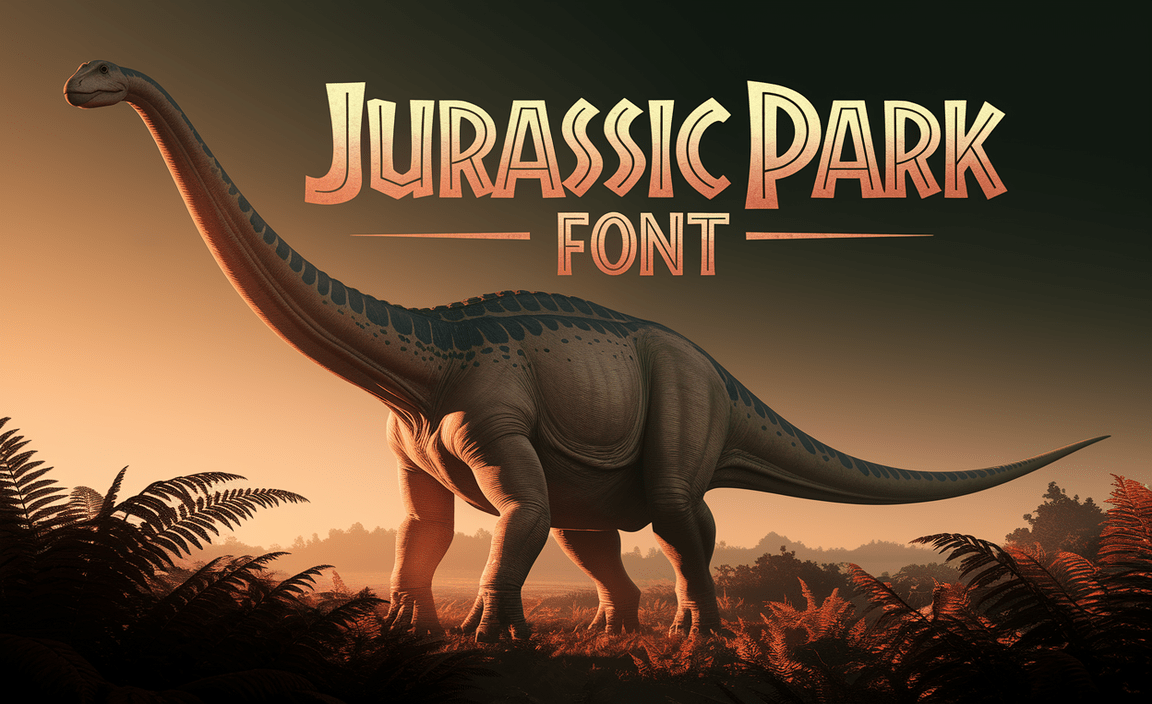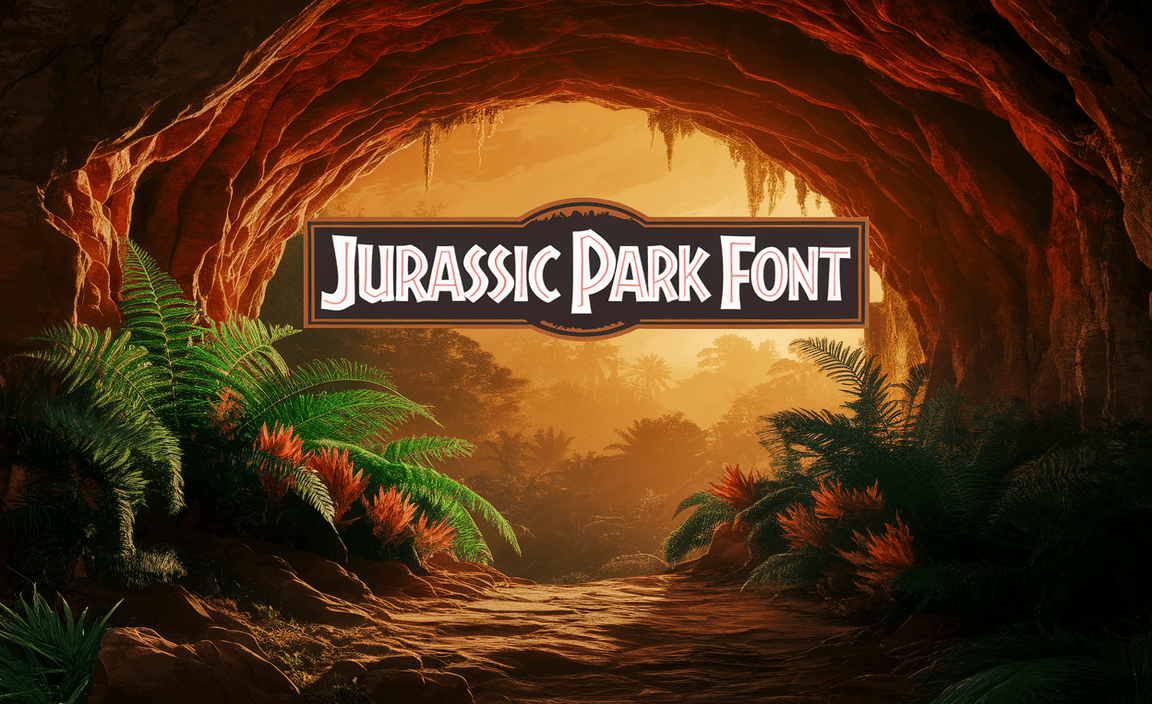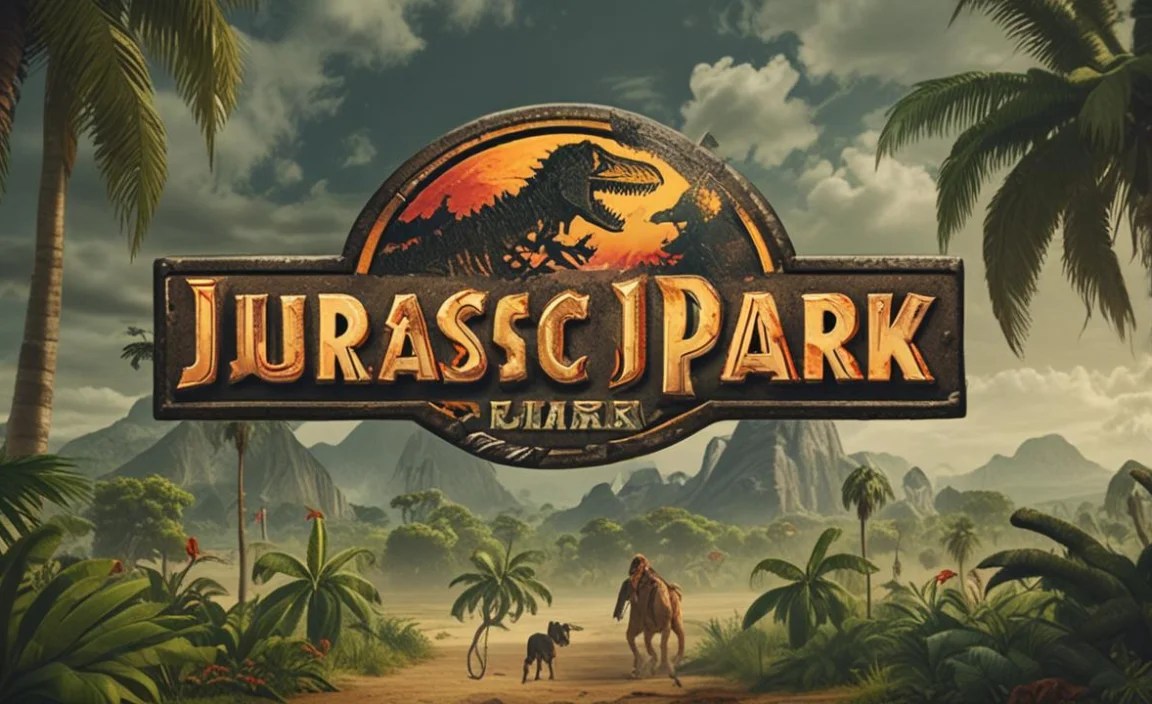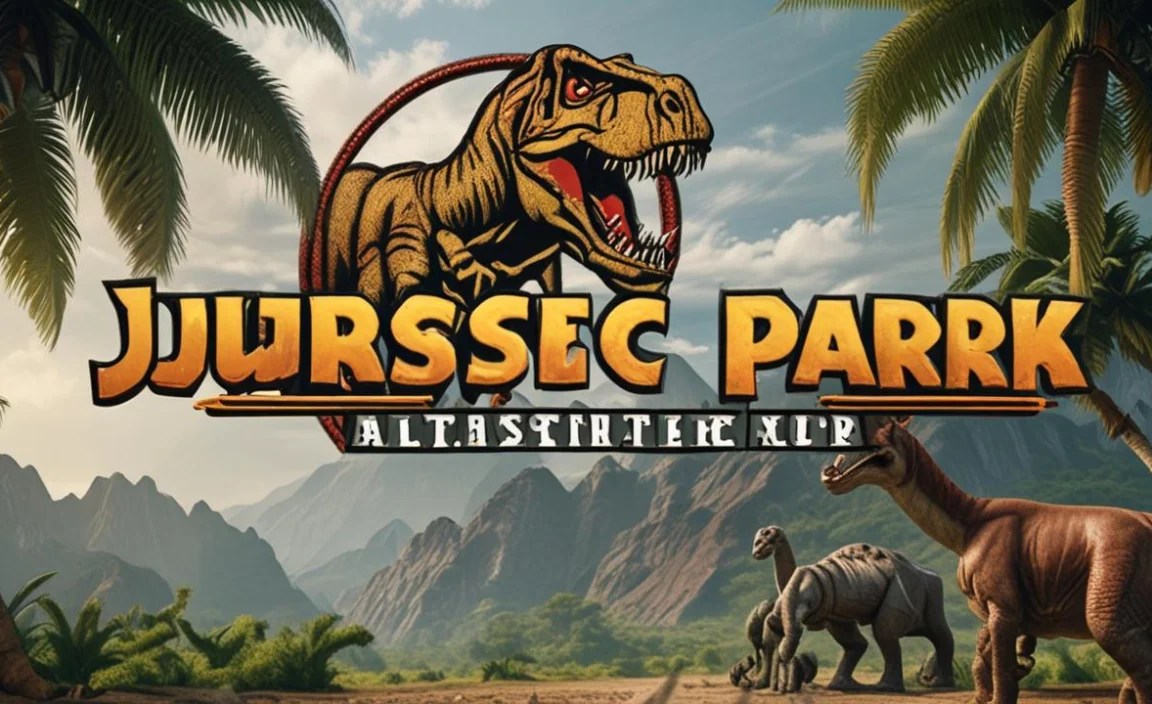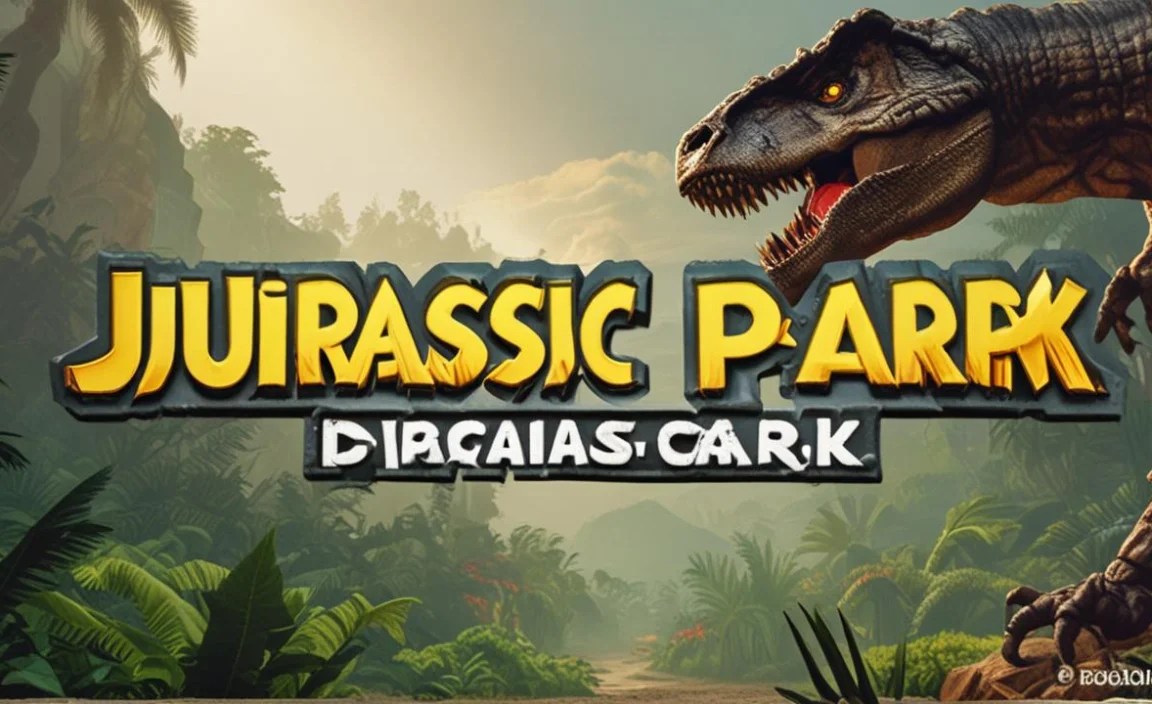
The Jurassic Park font, known for its bold and iconic design, was inspired by the logo of the famous 1993 movie Jurassic Park. This typeface, designed by Jens R.
Ziehn and released under the font family Film Himmel, has become widely popular in film, advertising, and pop culture projects due to its distinct prehistoric and adventurous vibe. Available as a display font, it’s perfect for creating attention-grabbing designs that evoke the adventure and excitement of the movie.
Jurassic Park Font Family Includes
The Jurassic Park font family is a solid choice for anyone looking to emulate the iconic title of the movie. It consists of one main style, but other similar fonts are often paired with it for different effects.
- Jurassic Park Regular
Notable Uses of Jurassic Park Font
The Jurassic Park font has made appearances in various forms of media and events, especially those connected to the franchise or similar adventure-themed projects. Its recognizable style is perfect for:
- Movie posters and merchandise for Jurassic Park and its sequels
- Theme park signage, especially for dinosaur and adventure-themed parks
- Promotional materials for adventure and science exhibitions
- Logos for prehistoric or dinosaur-related content, like documentaries, books, and children’s shows
Where Should I Use This Font
The Jurassic Park font works well in bold and large settings, making it a great choice for headers, posters, banners, and signs. Its distinct style fits well in the following cases:
- Movie titles or fan-made posters
- Children’s party invitations or dinosaur-themed event decor
- Adventure-themed websites or YouTube channels
- Any project needing an adventurous, prehistoric, or rugged aesthetic
Similar Font Options
If you’re looking for free alternatives to the Jurassic Park font, here are a few that can deliver a similar bold and adventurous effect:
- Dinosaur Font by Freaky Fonts
- Prehistoric Caveman by Iconian Fonts
- Jurassic World by Ace Fonts
- Adventure by Pixel Sagas
- Dino Park by Typodermic Fonts
These fonts capture a similar vibe and can be used when you want a Jurassic Park-inspired look without using the exact typeface.
Last Words
The Jurassic Park font, designed by Jens R. Ziehn, is a versatile and popular typeface for all things dinosaur, adventure, and movie-related. Its bold and distinct style captures the spirit of the film and works perfectly in a variety of creative projects. From movie posters to themed parties, this font can elevate your design to evoke a sense of excitement and nostalgia.
What Is The Best Alternative To The Jurassic Park Font?
Dinosaur Font by Freaky Fonts is a good free alternative.
Where Can I Use The Jurassic Park Font?
It works well on posters, banners, and adventure-themed projects.
Does The Jurassic Park Font Have Italics?
Fan-made versions may include italicized versions, but the original is a display font.
What Font Is Used For The Jurassic World Movies?
The Jurassic World movies use a slightly different font that builds on the original style.
Is The Jurassic Park Font Good For Web Design?
Yes, it can be used for bold headers, but due to its stylistic design, it may not be ideal for body text.
Are There Jurassic Park Font Variations?
Yes, fan-made variations include italic, bold, and condensed styles.